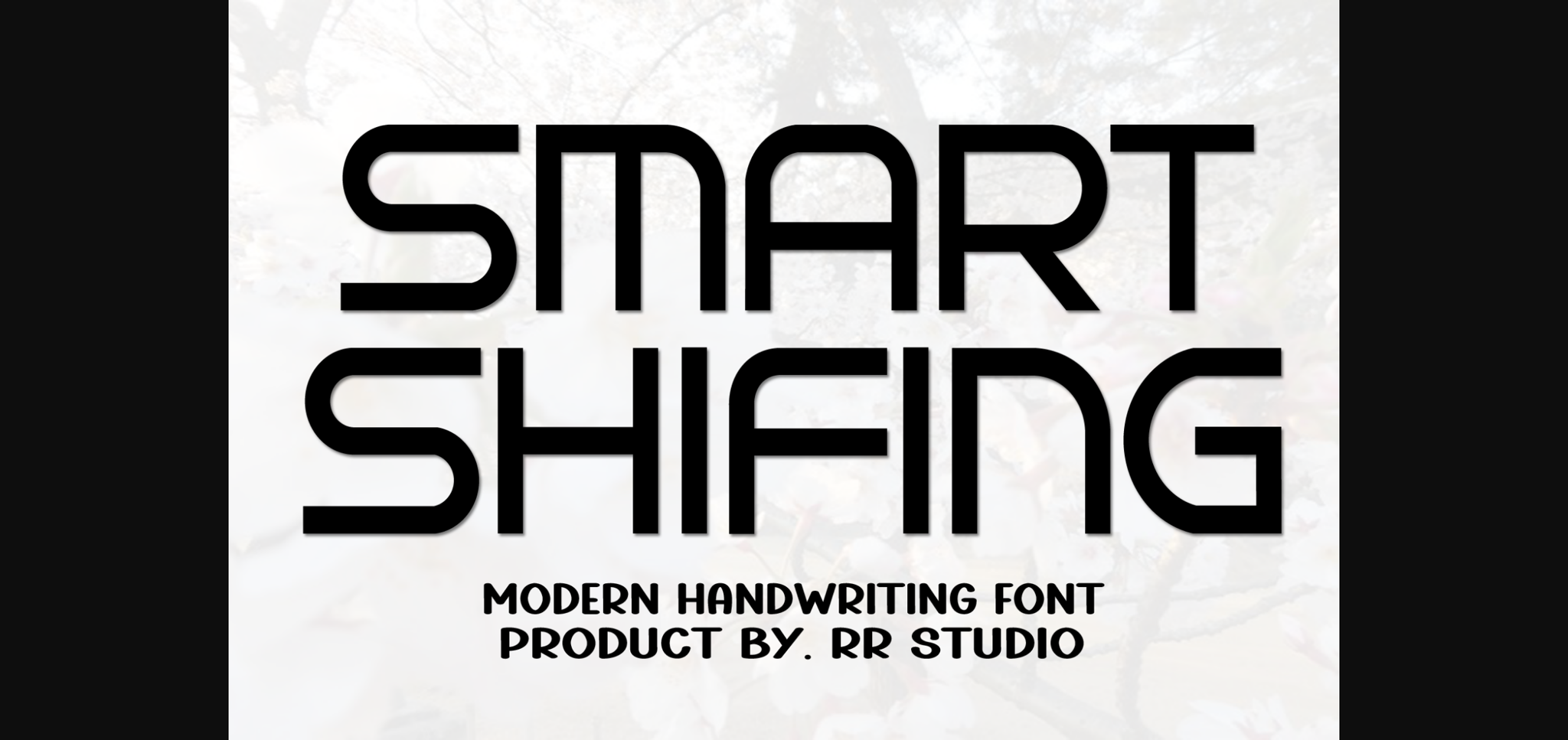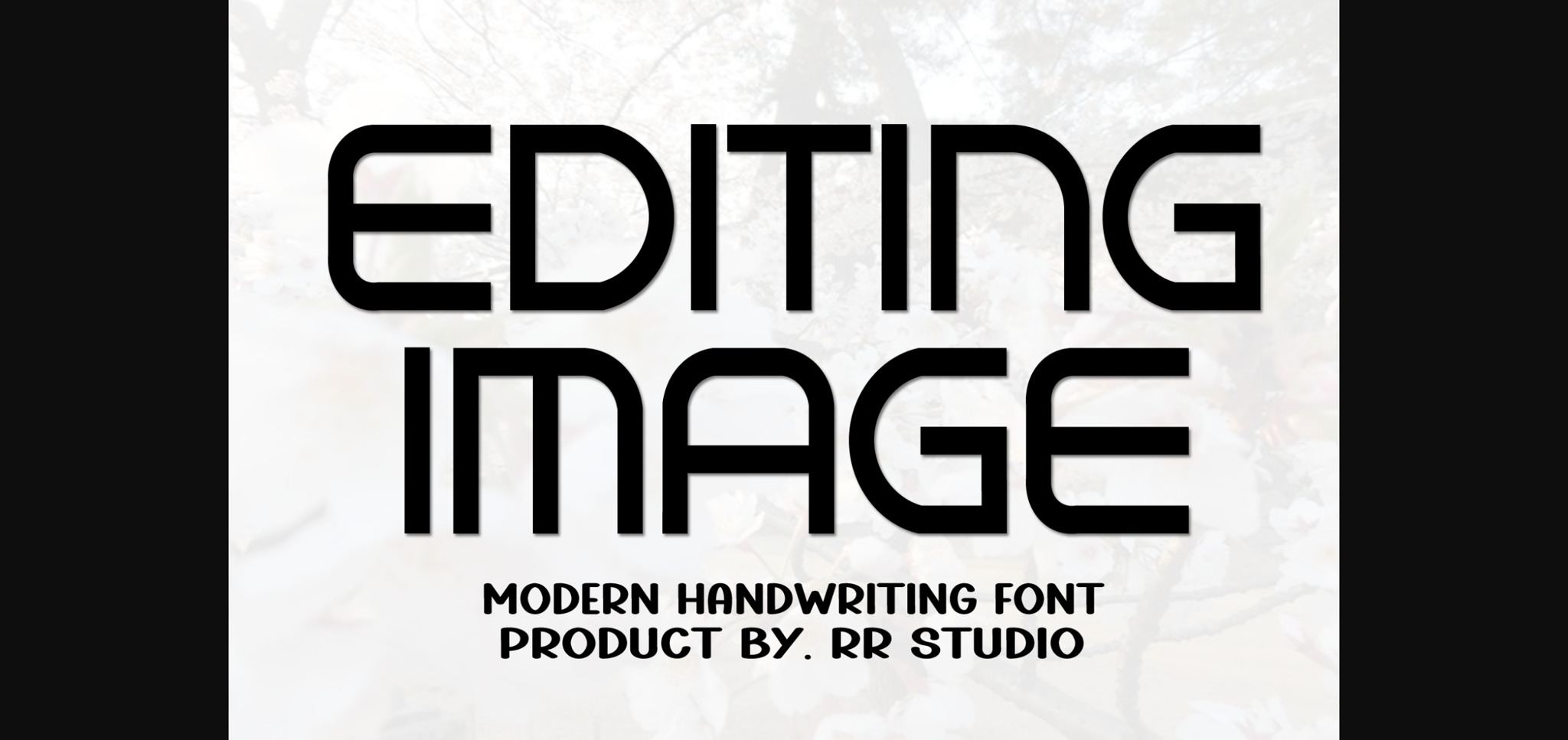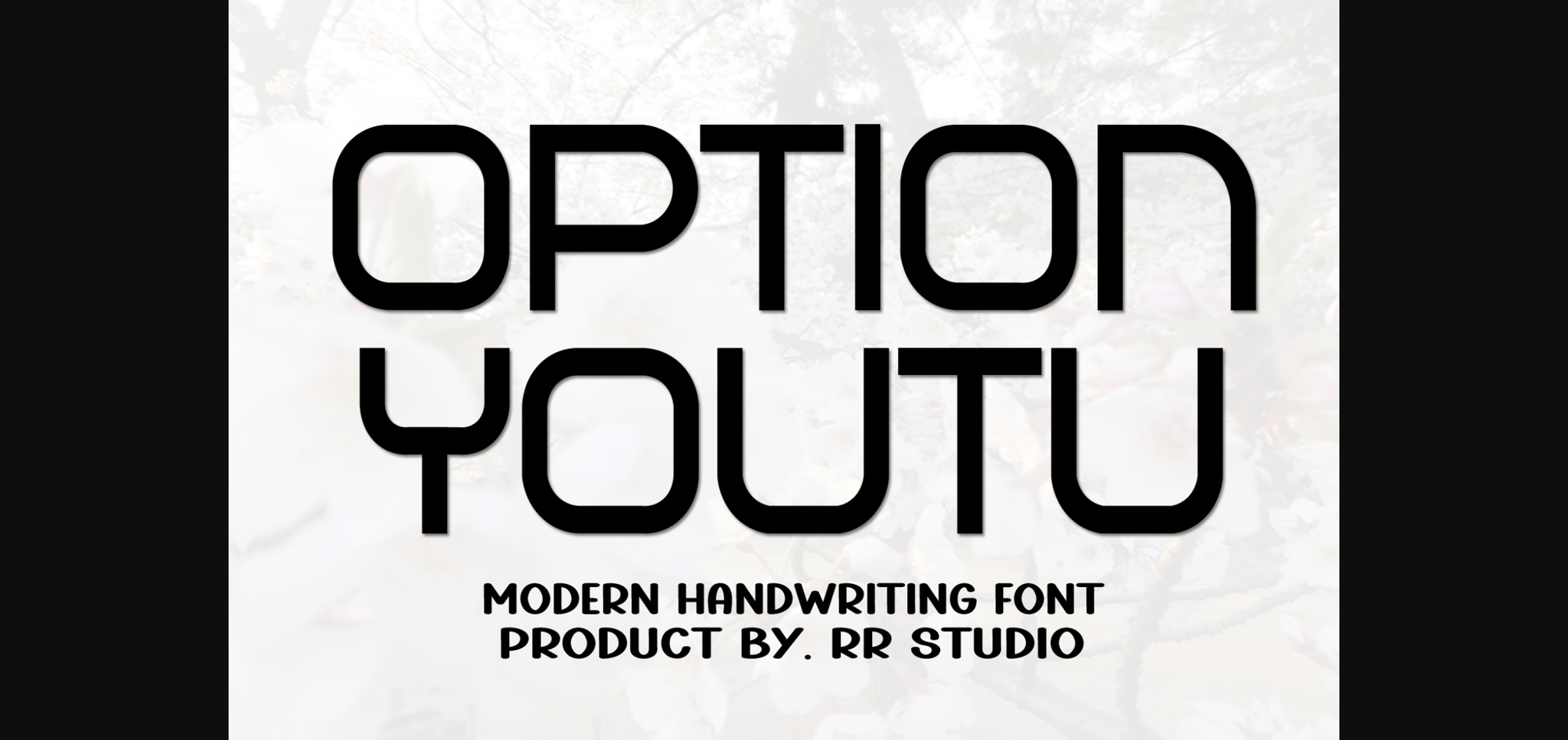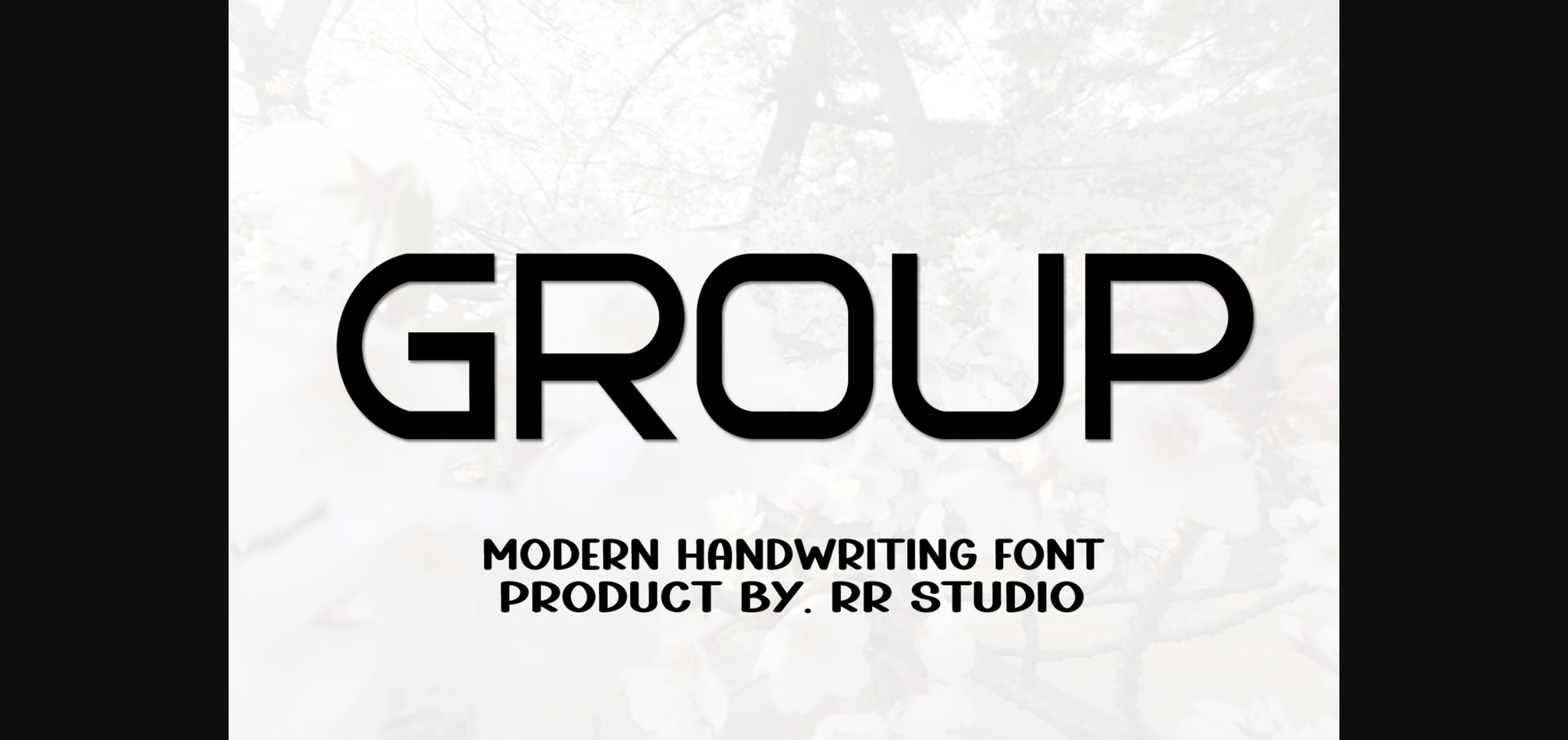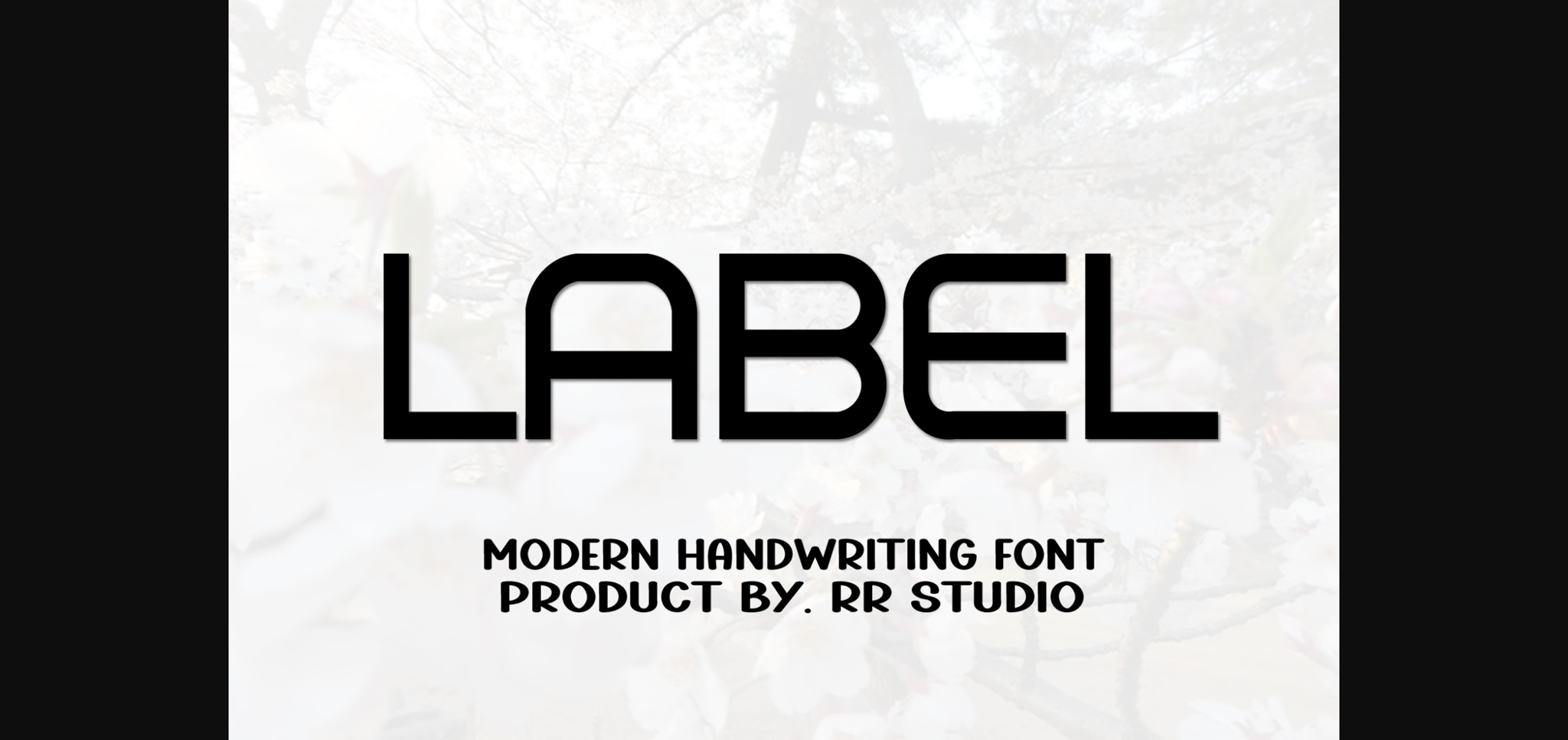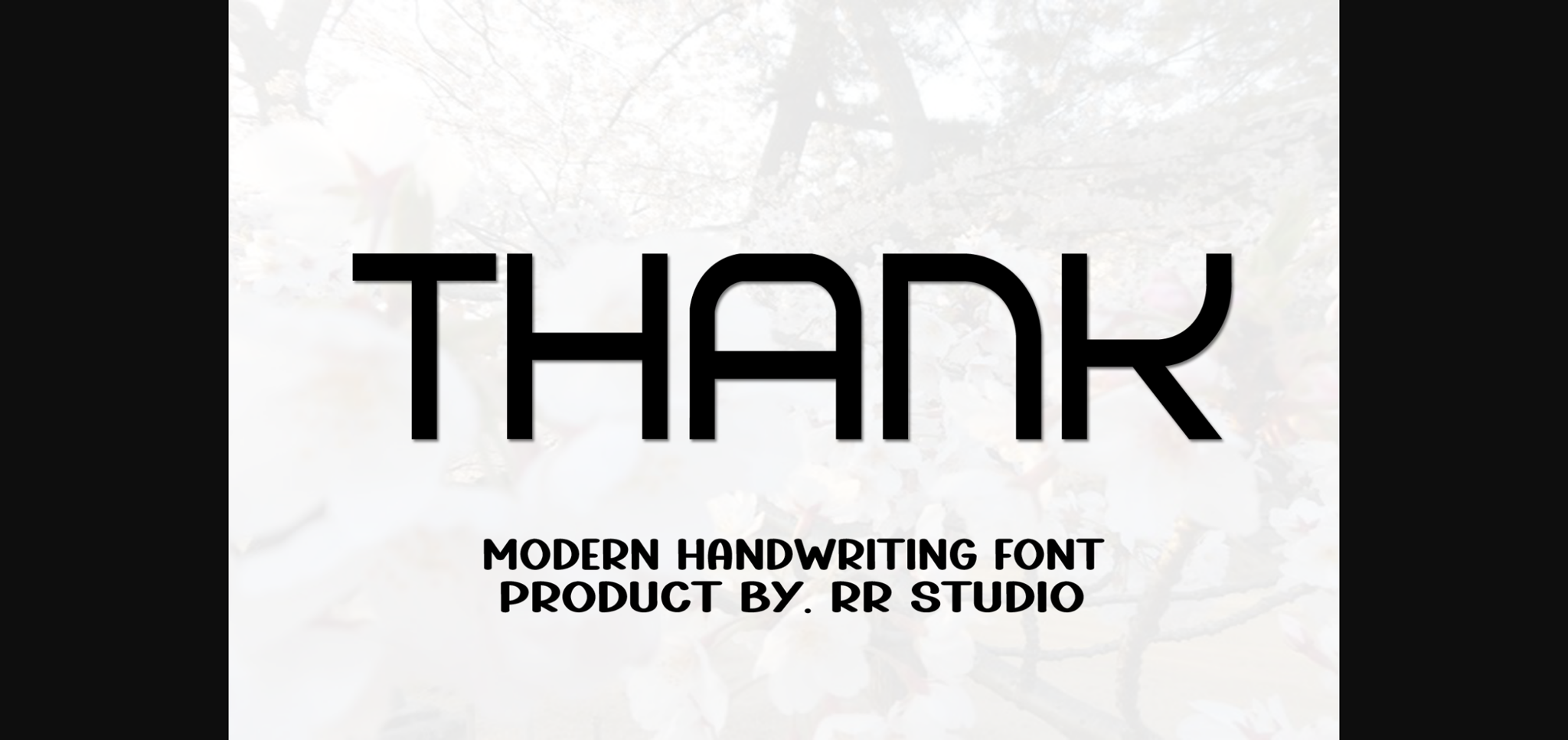
Smart Shifing Font
About Smart Shifing Font
Smart Shifing is a stylish and incredibly elegant sans serif font. It looks stunning on wedding invitations, thank you cards, quotes, greeting cards, logos, business cards and every other design which needs a handwritten touch.